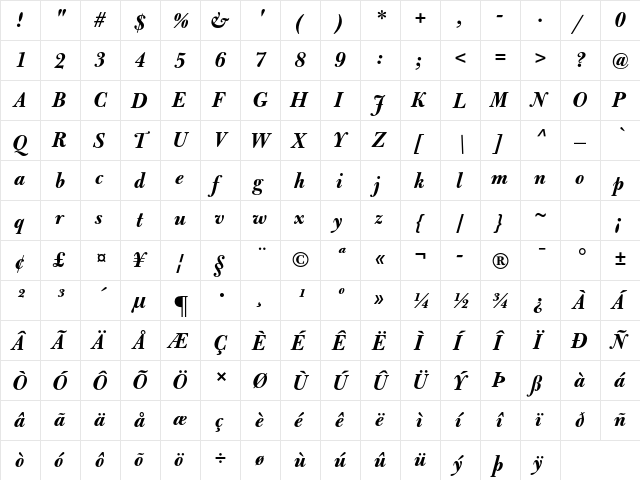
Bulmer MT Std Bold Italic Display Font Preview
| Designer | Morris Fuller Benton, William Martin |
Design Context for Bulmer MT Std Typeface
Bulmer MT Std brings ornamental detail and strong personality to headlines and identities, where visual impact matters more than quiet functionality. Its italic angle brings a sense of urgency and motion to the letterforms. The heavy weight commands attention and anchors typographic hierarchies.
Font Pairing: Pair with a clean neutral sans-serif for body copy to let Bulmer MT Std's character lead without overwhelming the composition.
Pro Tip: Use Bulmer MT Std exclusively at display sizes — it was designed to be seen, not read at length. Let a neutral companion handle body copy.